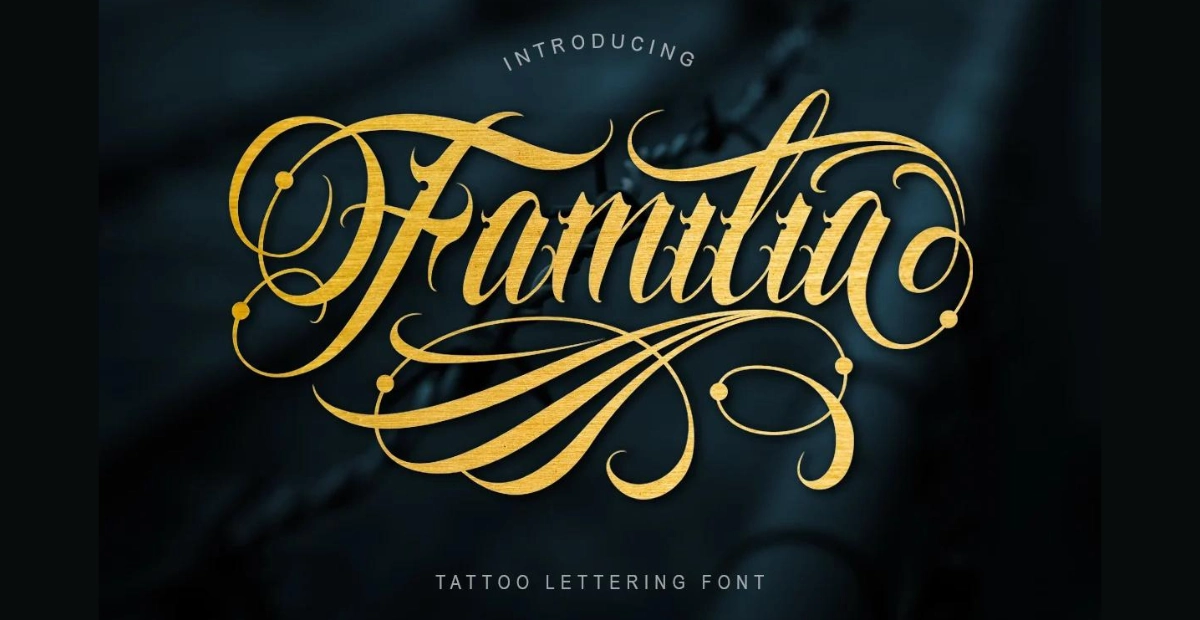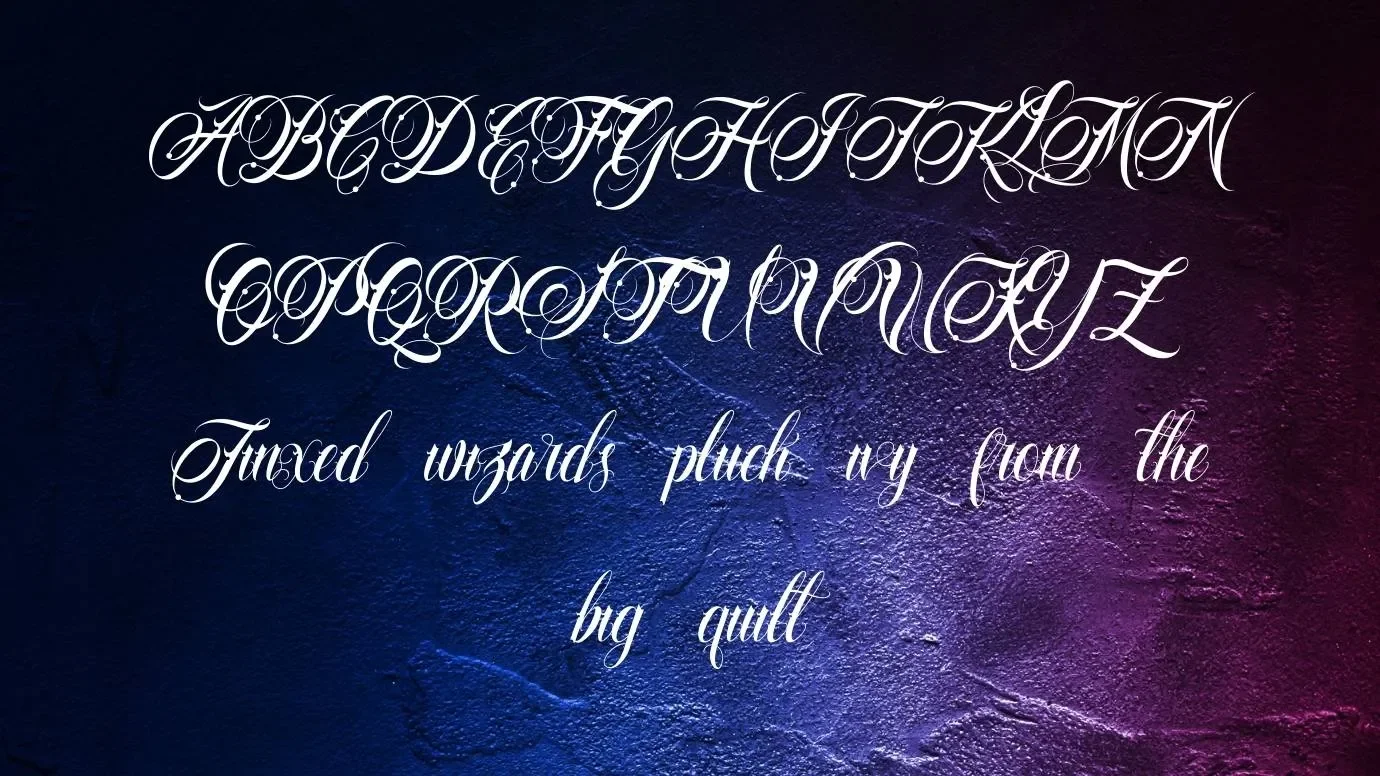
Familia Tattoo Font - Introducing familia tattoo lettering font with more details, clean, and more complex. Familia includes uppercase and lowercase. Familia script is truly a perfect script for any project that's need delicate typeface such as custom name, greeting card, create. Introducing familia tattoo lettering font with more details, clean, and more complex. Familia includes uppercase and lowercase letters,. Familia tattoo font includes uppercase and lowercase letters, numerals, a large range of punctuation, ligatures, and multilingual.
Introducing familia tattoo lettering font with more details, clean, and more complex. Familia tattoo font includes uppercase and lowercase letters, numerals, a large range of punctuation, ligatures, and multilingual. Familia includes uppercase and lowercase. Familia includes uppercase and lowercase letters,. Familia script is truly a perfect script for any project that's need delicate typeface such as custom name, greeting card, create. Introducing familia tattoo lettering font with more details, clean, and more complex.
Familia script is truly a perfect script for any project that's need delicate typeface such as custom name, greeting card, create. Familia tattoo font includes uppercase and lowercase letters, numerals, a large range of punctuation, ligatures, and multilingual. Introducing familia tattoo lettering font with more details, clean, and more complex. Familia includes uppercase and lowercase. Introducing familia tattoo lettering font with more details, clean, and more complex. Familia includes uppercase and lowercase letters,.
Familia Tattoo Blackletter Font
Familia includes uppercase and lowercase letters,. Introducing familia tattoo lettering font with more details, clean, and more complex. Familia includes uppercase and lowercase. Familia tattoo font includes uppercase and lowercase letters, numerals, a large range of punctuation, ligatures, and multilingual. Familia script is truly a perfect script for any project that's need delicate typeface such as custom name, greeting card,.
Familia Tattoo Lettering Font
Introducing familia tattoo lettering font with more details, clean, and more complex. Familia includes uppercase and lowercase. Familia includes uppercase and lowercase letters,. Introducing familia tattoo lettering font with more details, clean, and more complex. Familia script is truly a perfect script for any project that's need delicate typeface such as custom name, greeting card, create.
Familia includes uppercase and lowercase. Familia includes uppercase and lowercase letters,. Introducing familia tattoo lettering font with more details, clean, and more complex. Familia tattoo font includes uppercase and lowercase letters, numerals, a large range of punctuation, ligatures, and multilingual. Familia script is truly a perfect script for any project that's need delicate typeface such as custom name, greeting card,.
Familia tattoo font includes uppercase and lowercase letters, numerals, a large range of punctuation, ligatures, and multilingual. Familia includes uppercase and lowercase letters,. Familia includes uppercase and lowercase. Introducing familia tattoo lettering font with more details, clean, and more complex. Familia script is truly a perfect script for any project that's need delicate typeface such as custom name, greeting card,.
Familia includes uppercase and lowercase letters,. Introducing familia tattoo lettering font with more details, clean, and more complex. Familia script is truly a perfect script for any project that's need delicate typeface such as custom name, greeting card, create. Familia tattoo font includes uppercase and lowercase letters, numerals, a large range of punctuation, ligatures, and multilingual. Introducing familia tattoo lettering.
Introducing familia tattoo lettering font with more details, clean, and more complex. Familia script is truly a perfect script for any project that's need delicate typeface such as custom name, greeting card, create. Familia includes uppercase and lowercase letters,. Introducing familia tattoo lettering font with more details, clean, and more complex. Familia tattoo font includes uppercase and lowercase letters, numerals,.
Familia tattoo font includes uppercase and lowercase letters, numerals, a large range of punctuation, ligatures, and multilingual. Introducing familia tattoo lettering font with more details, clean, and more complex. Familia includes uppercase and lowercase letters,. Familia includes uppercase and lowercase. Familia script is truly a perfect script for any project that's need delicate typeface such as custom name, greeting card,.
Familia includes uppercase and lowercase letters,. Familia tattoo font includes uppercase and lowercase letters, numerals, a large range of punctuation, ligatures, and multilingual. Familia includes uppercase and lowercase. Introducing familia tattoo lettering font with more details, clean, and more complex. Familia script is truly a perfect script for any project that's need delicate typeface such as custom name, greeting card,.
Familia Includes Uppercase And Lowercase Letters,.
Introducing familia tattoo lettering font with more details, clean, and more complex. Familia includes uppercase and lowercase. Familia script is truly a perfect script for any project that's need delicate typeface such as custom name, greeting card, create. Familia tattoo font includes uppercase and lowercase letters, numerals, a large range of punctuation, ligatures, and multilingual.